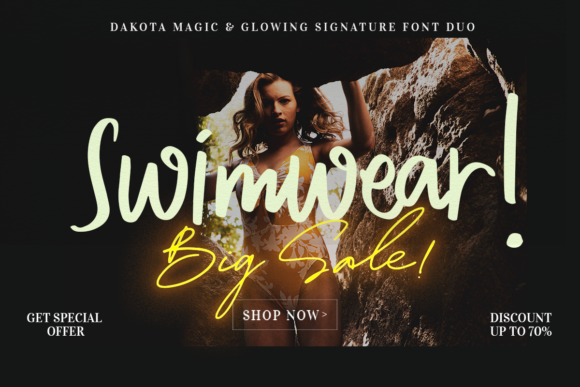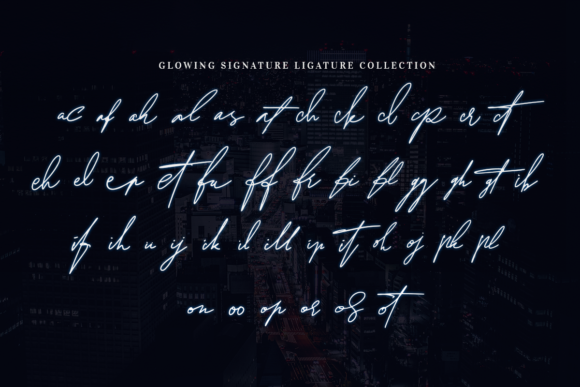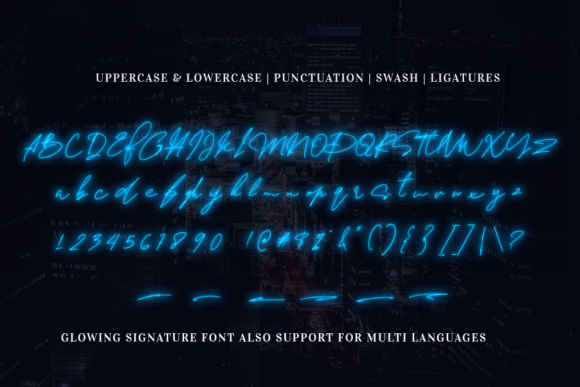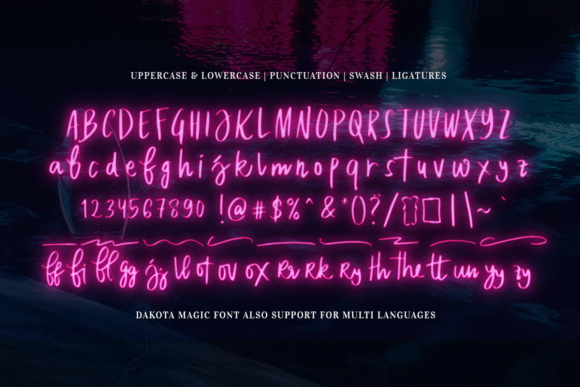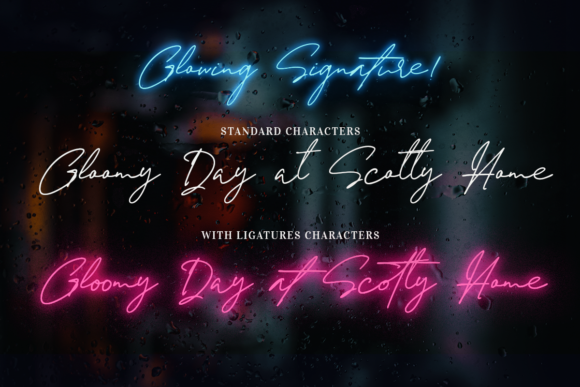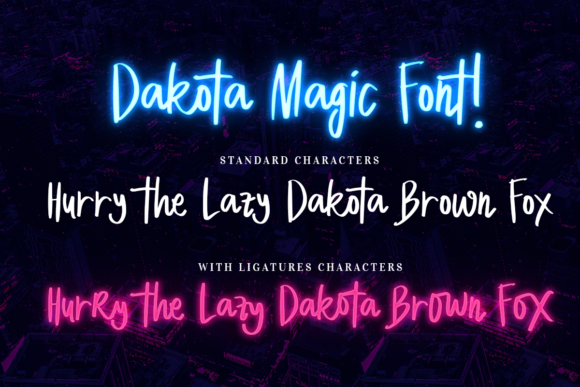
Dakota Magic! Glowing Font: Elevate Your Designs with Elegance and Sophistication
Are you a designer or crafter looking for a font that can add a touch of magic to your creations? Look no further than Dakota Magic! Glowing Font. This beautiful and flowing script font is perfect for a wide range of applications, from logos and wedding invitations to headings, t-shirts, and more.
What Makes Dakota Magic! Glowing Font So Special?
Dakota Magic! Glowing Font is a unique and elegant script font that is sure to make your designs stand out. Its flowing lines and beautiful letterforms make it perfect for creating sophisticated and eye-catching designs. Whether you’re looking to create a logo, wedding invitation, or social media graphic, this font is sure to impress.
Uses for Dakota Magic! Glowing Font
The versatility of Dakota Magic! Glowing Font is one of its best features. Here are just a few examples of the many ways you can use this font:
- Logos: Create a professional and elegant logo for your business or brand with Dakota Magic! Glowing Font.
- Wedding Invitations: Make your wedding invitations truly special with this beautiful script font.
- Headings: Add a touch of sophistication to your headings and titles with Dakota Magic! Glowing Font.
- T-Shirts: Create custom t-shirts with this unique and eye-catching font.
- Letterhead: Elevate your business correspondence with elegant letterhead featuring Dakota Magic! Glowing Font.
- Signage: Make your signs stand out with this beautiful and flowing script font.
- Labels: Create custom labels for your products or gifts with Dakota Magic! Glowing Font.
- News: Use this font to create eye-catching headlines and titles for your news articles.
- Posters: Create stunning posters with Dakota Magic! Glowing Font.
- Badges: Design custom badges with this elegant script font.
Why Choose Dakota Magic! Glowing Font?
There are many reasons why Dakota Magic! Glowing Font is the perfect choice for your design needs. Here are just a few:
- Elegant and Sophisticated: This font is perfect for creating elegant and sophisticated designs.
- Versatile: Dakota Magic! Glowing Font can be used for a wide range of applications.
- Unique: This font is sure to make your designs stand out from the crowd.
Tips for Using Dakota Magic! Glowing Font
Here are a few tips for getting the most out of Dakota Magic! Glowing Font:
- Use it Sparingly: While Dakota Magic! Glowing Font is beautiful, it can be overwhelming if used too much. Use it sparingly to create a focal point in your design.
- Pair it with Other Fonts: Pair Dakota Magic! Glowing Font with other fonts to create a unique and interesting design.
Dakota Magic! Glowing Font is a beautiful and versatile script font that is perfect for designers and crafters. Its elegant and sophisticated design makes it perfect for a wide range of applications, from logos and wedding invitations to headings, t-shirts, and more. With its ease of use and unique design, Dakota Magic! Glowing Font is sure to elevate your designs to the next level.